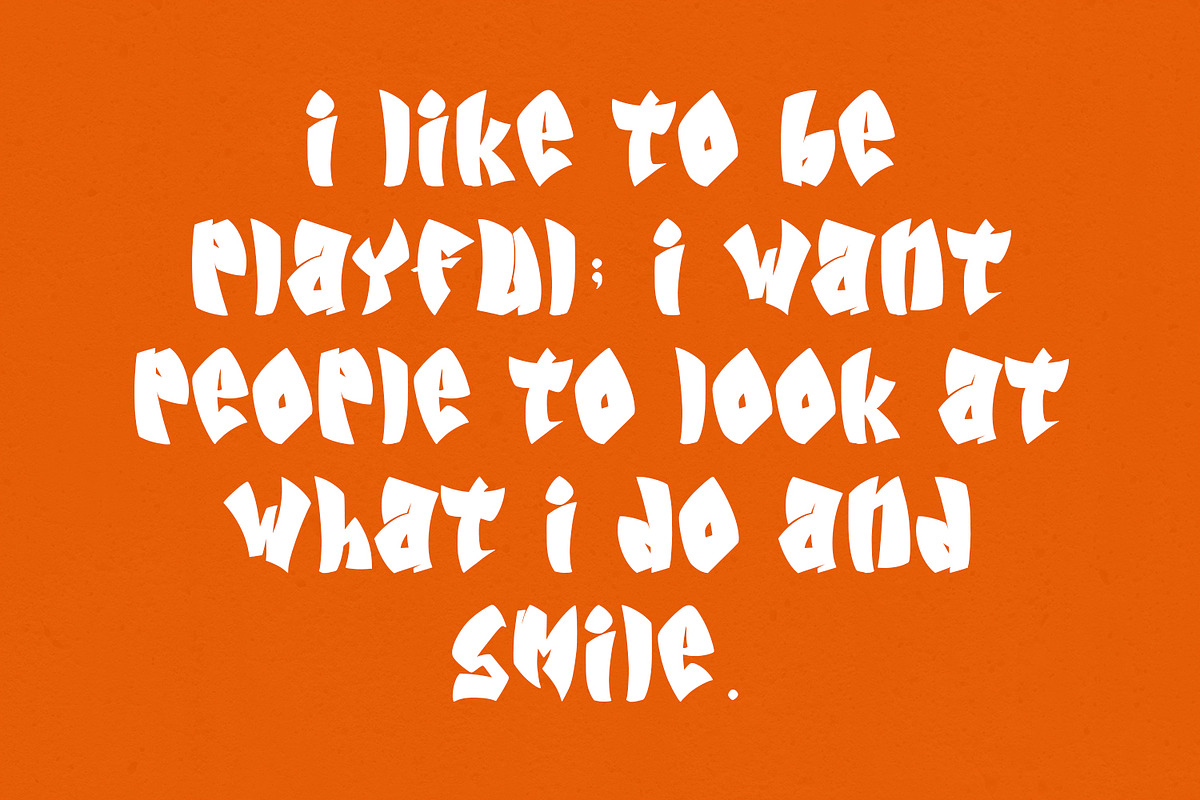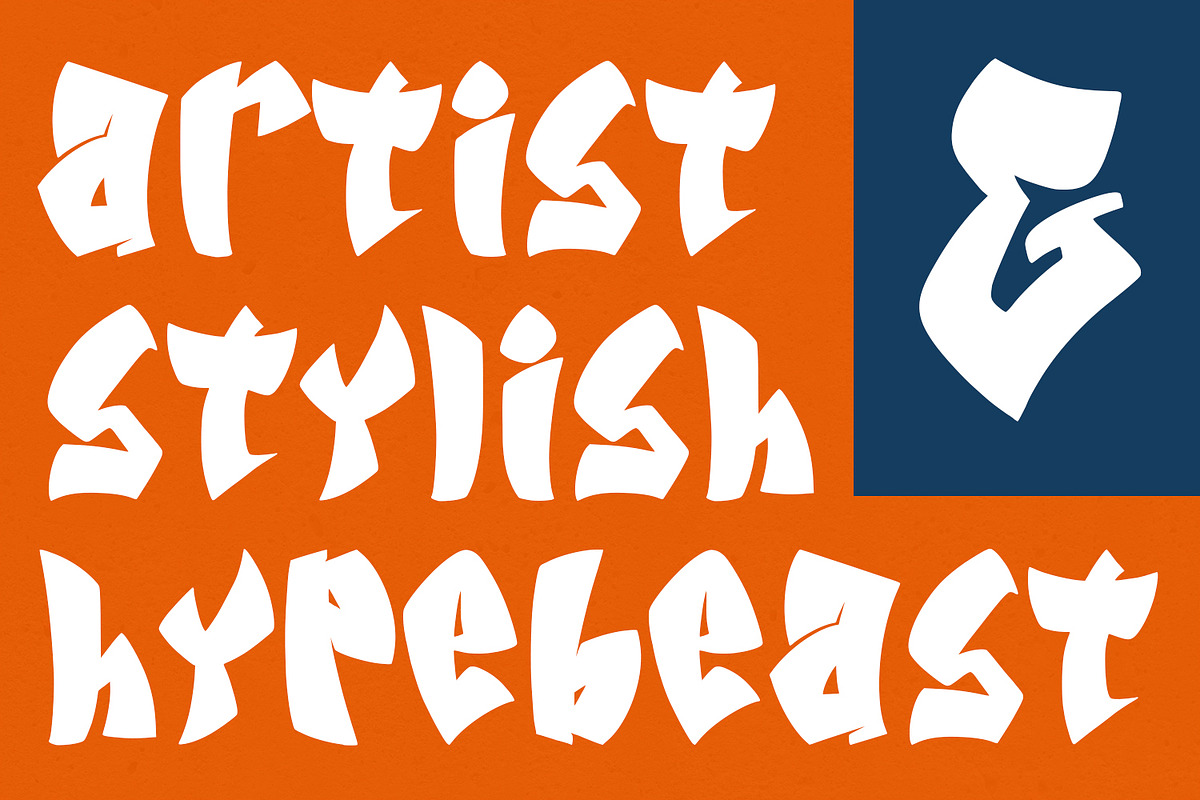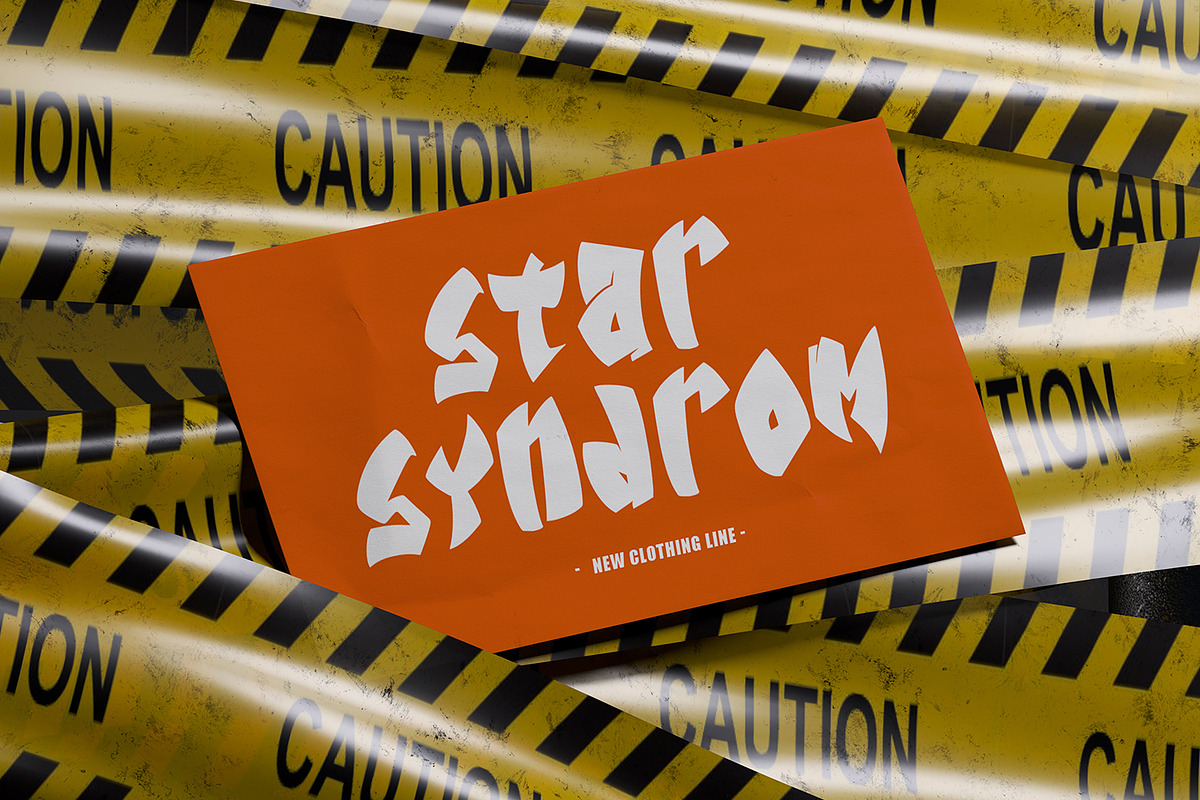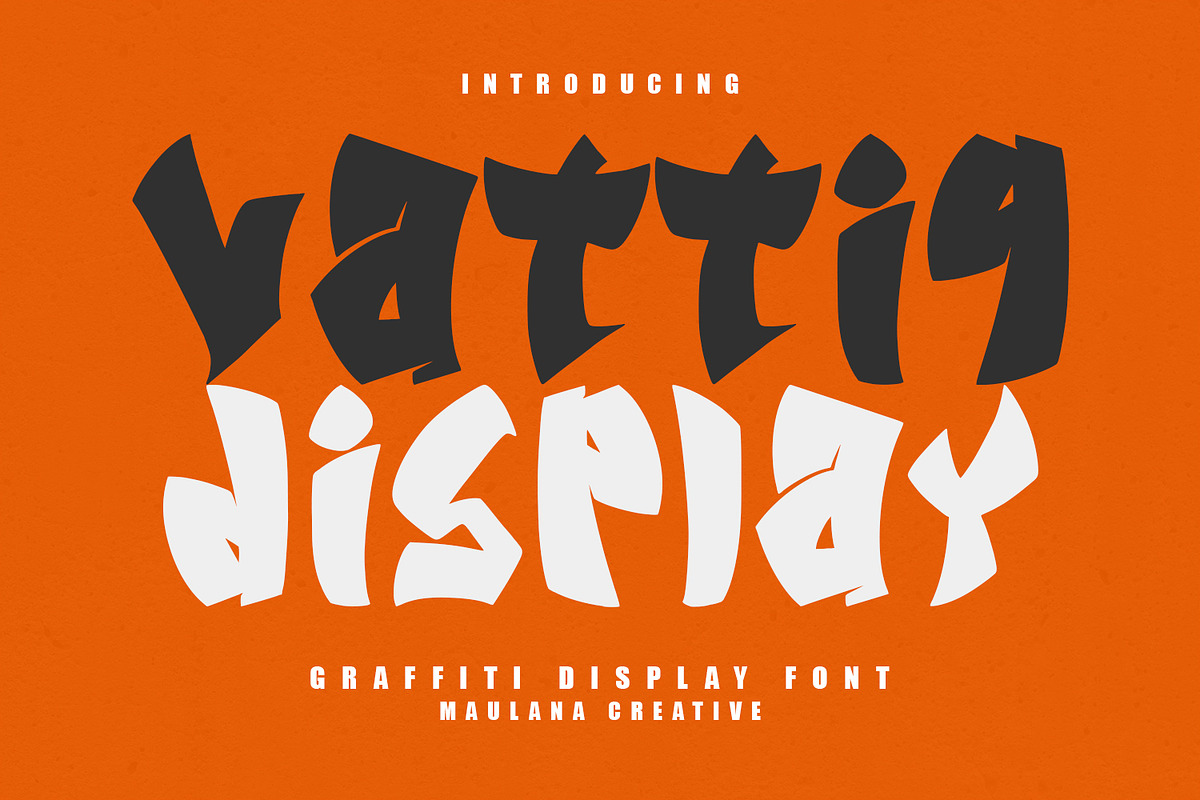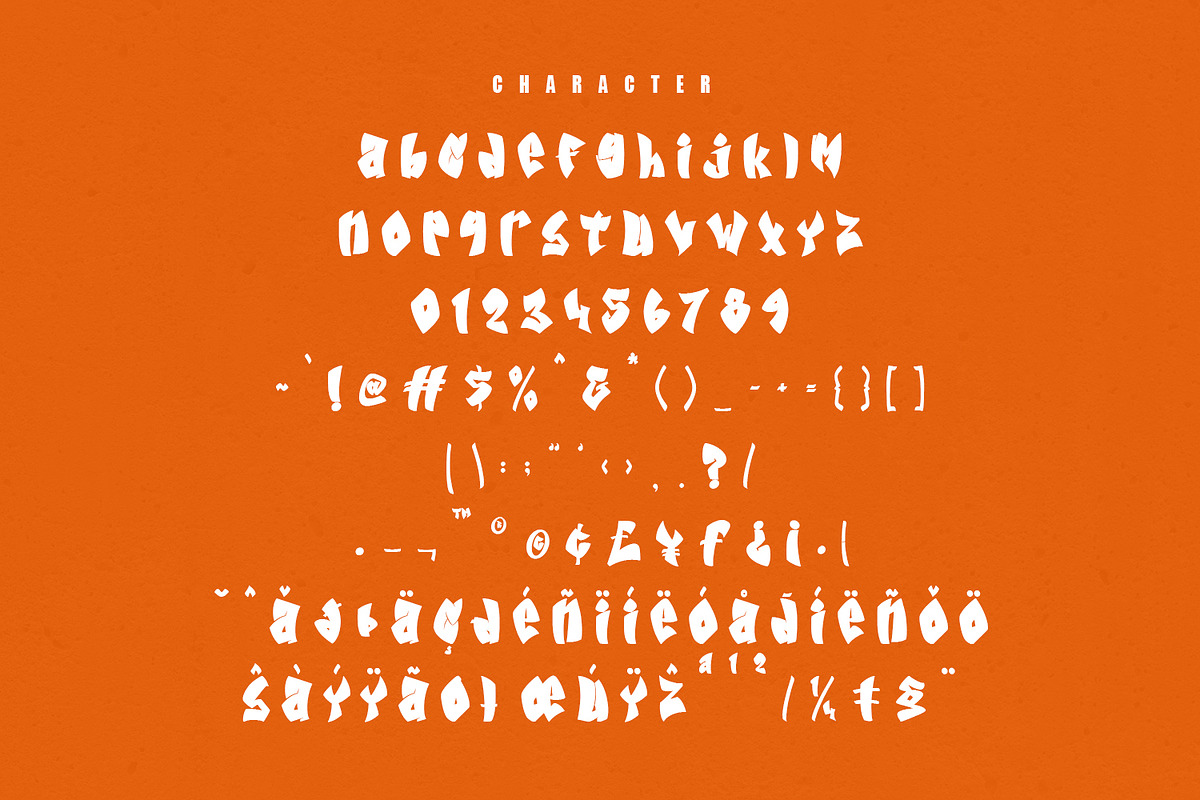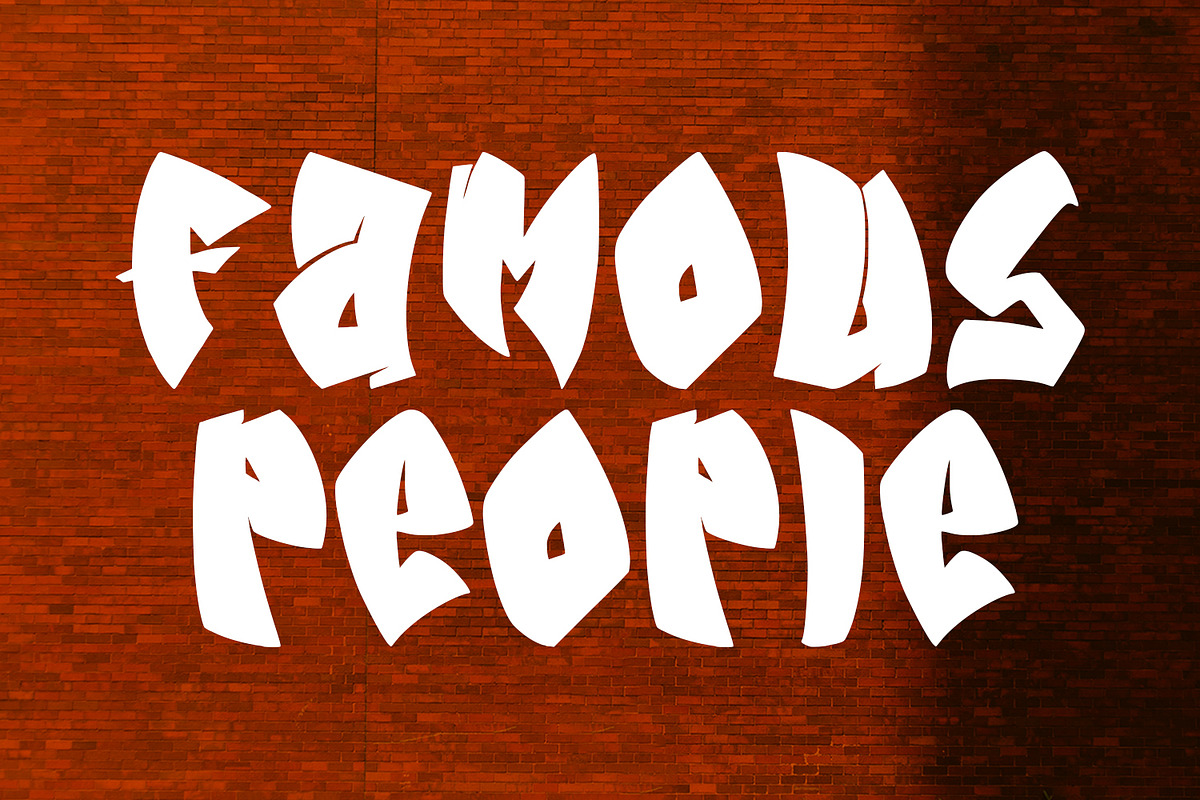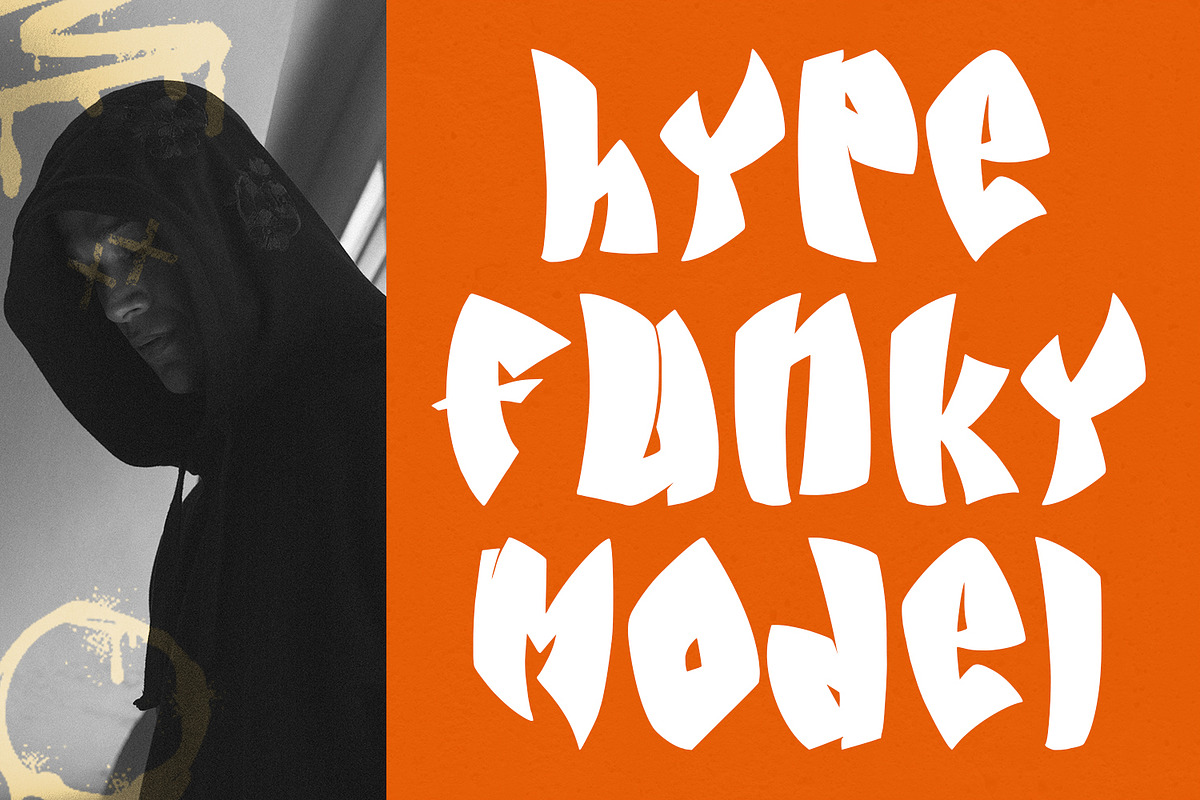
Vattiq Japanese Graffiti Display
Vattiq is a graffiti japanese display handwritten font. With bold stroke, fun character to give you an extra creative work. Vattiq font support multilingual more than 100+ language. This font is good for logo design, Social media, Movie Titles, Books Titles, a short text even a long text letter and good for your secondary text font with sans or serif. Make a stunning work with Vattiq font.